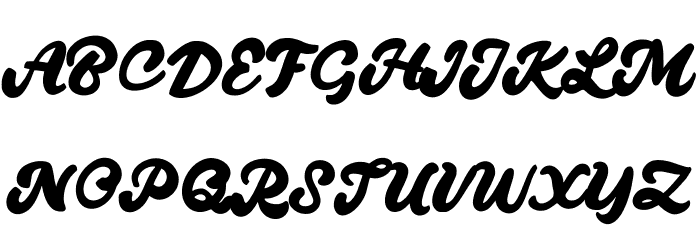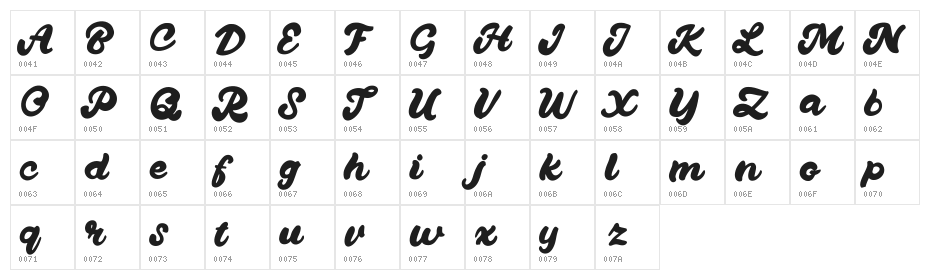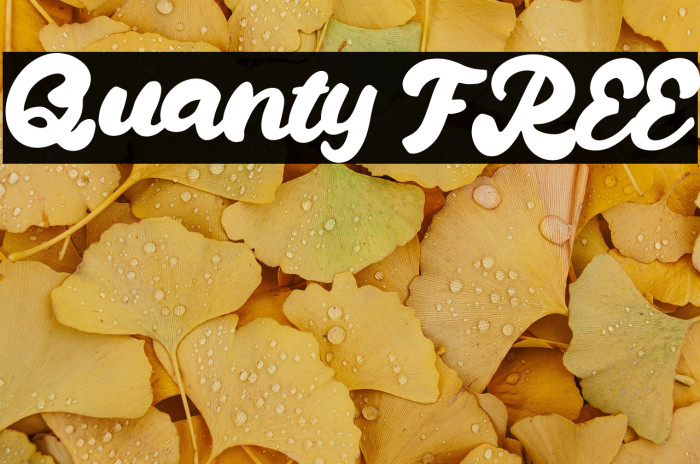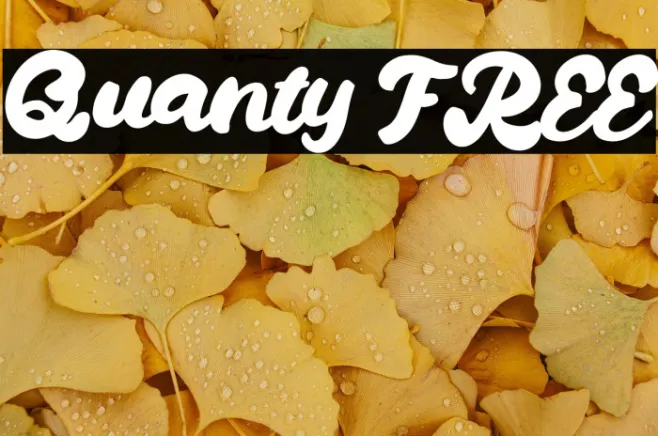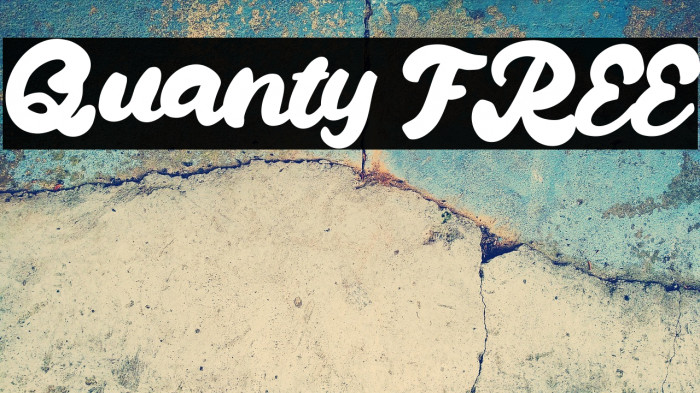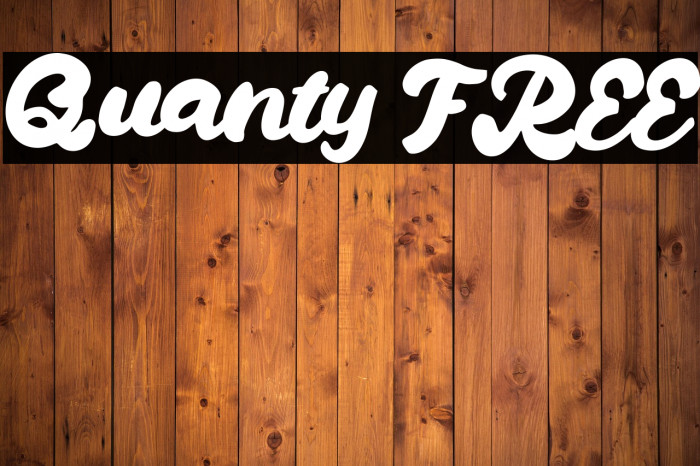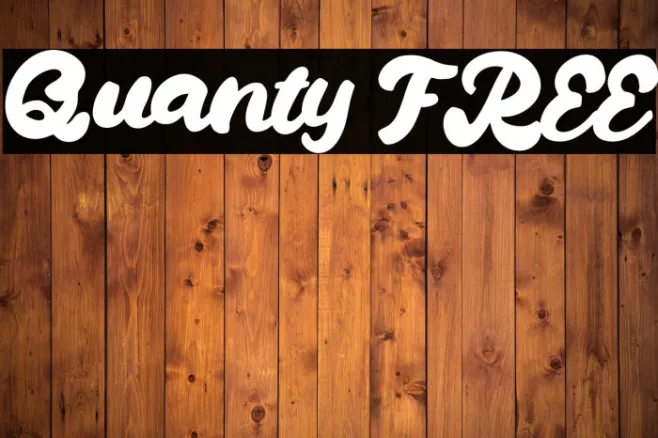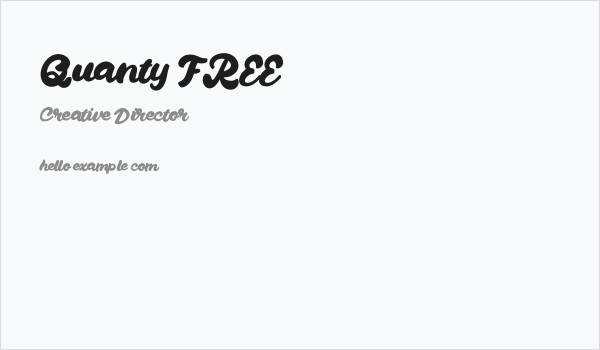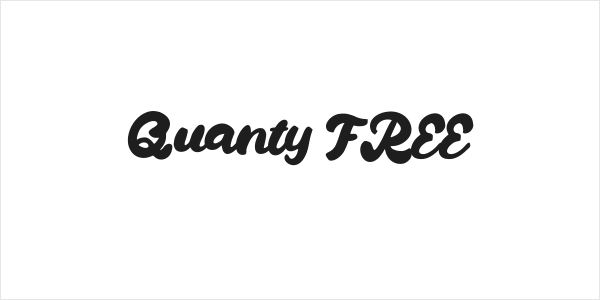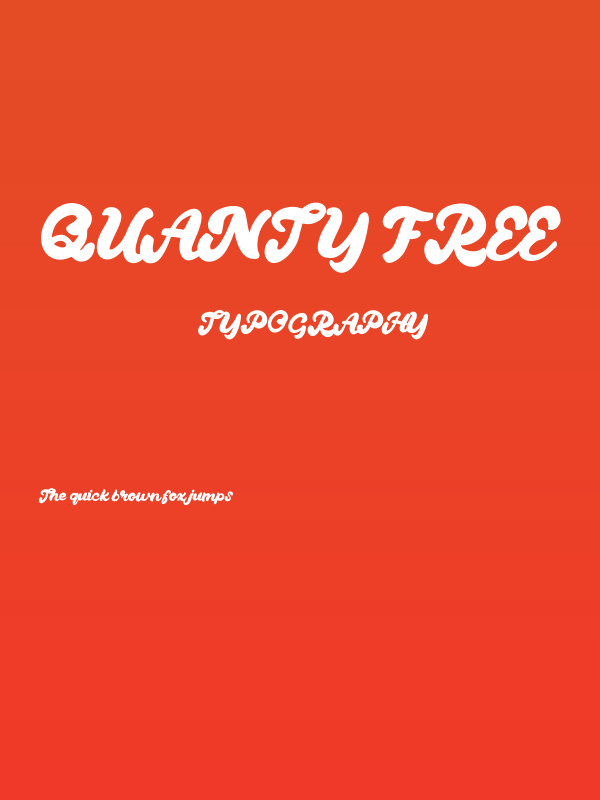
Quanty FREE Font
Quanty FREE Description
This font features a bold, cursive style with a playful and dynamic appearance. The letters are interconnected, creating a flowing script that is both elegant and lively. The strokes are thick and consistent, providing a strong visual impact. The uppercase and lowercase letters maintain a cohesive style, with rounded edges and smooth curves. This font is ideal for projects that require a touch of sophistication and creativity, such as invitations, branding, and decorative headings. Its bold nature ensures readability while adding a unique flair to any design.
| Proposed Projects | Ideal for invitations, branding, decorative headings, and creative projects. |